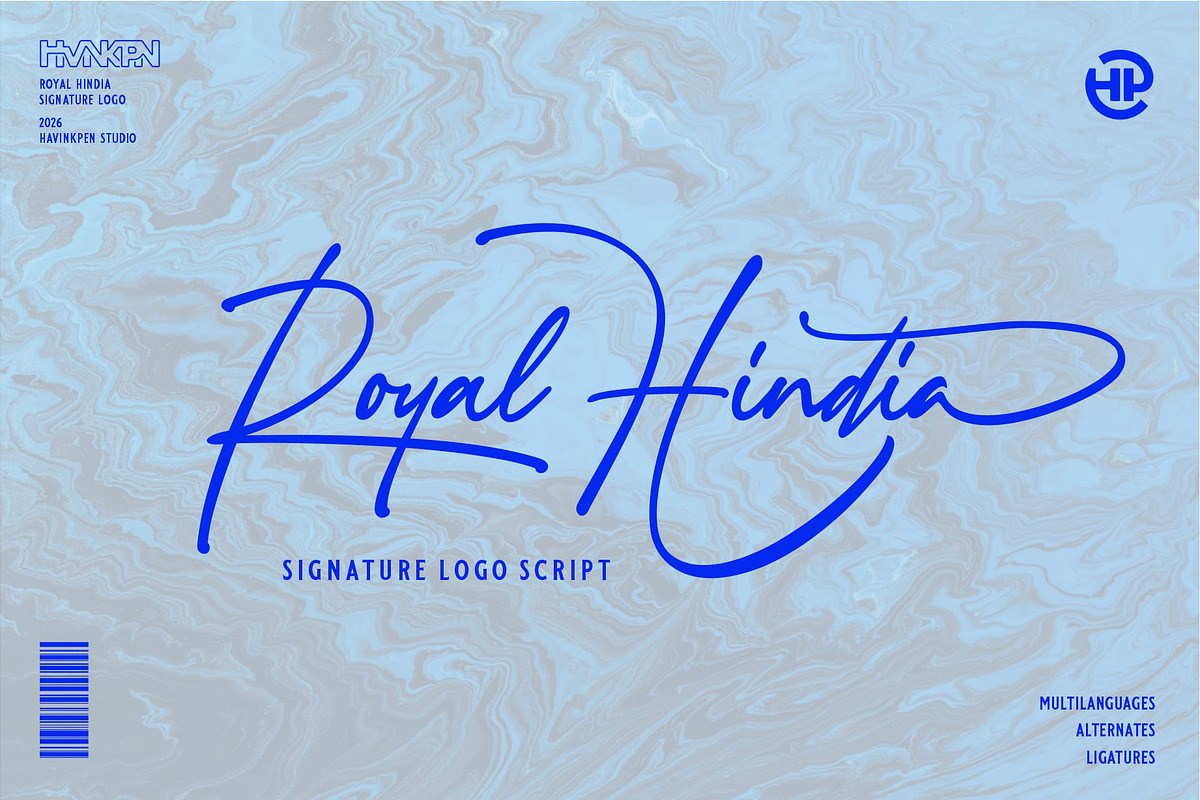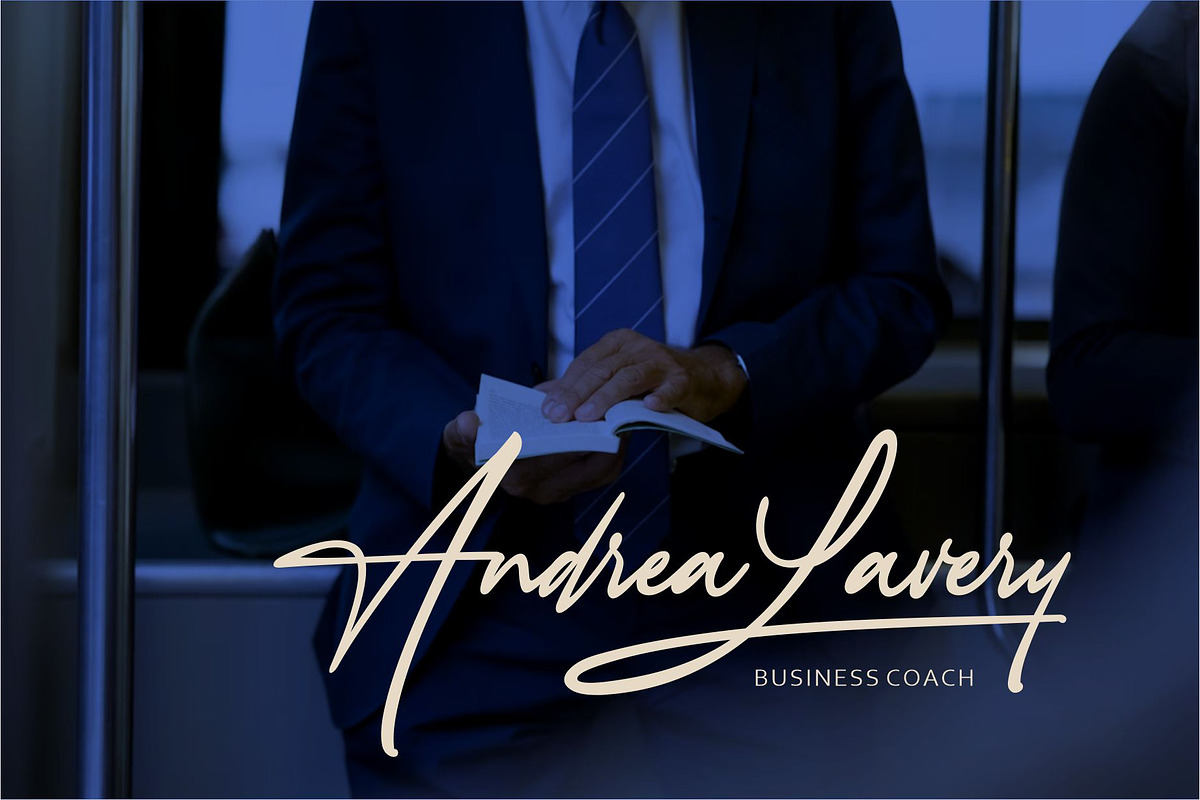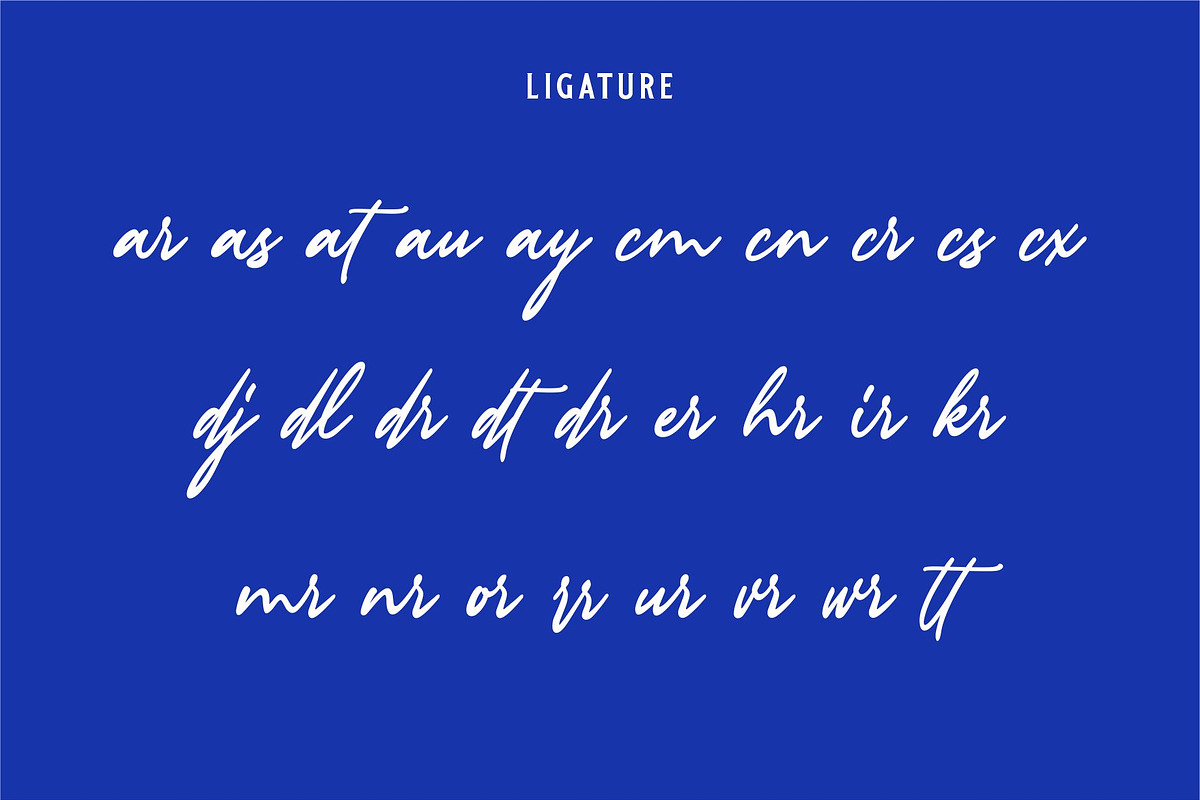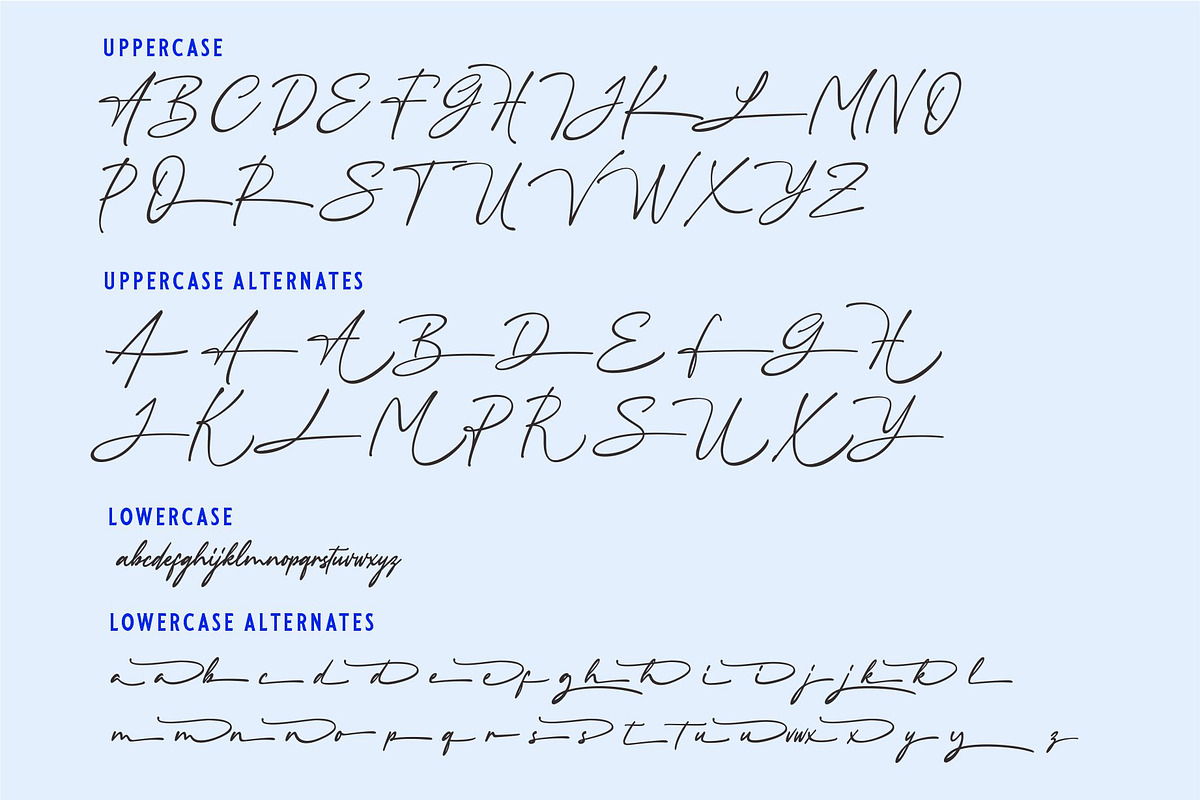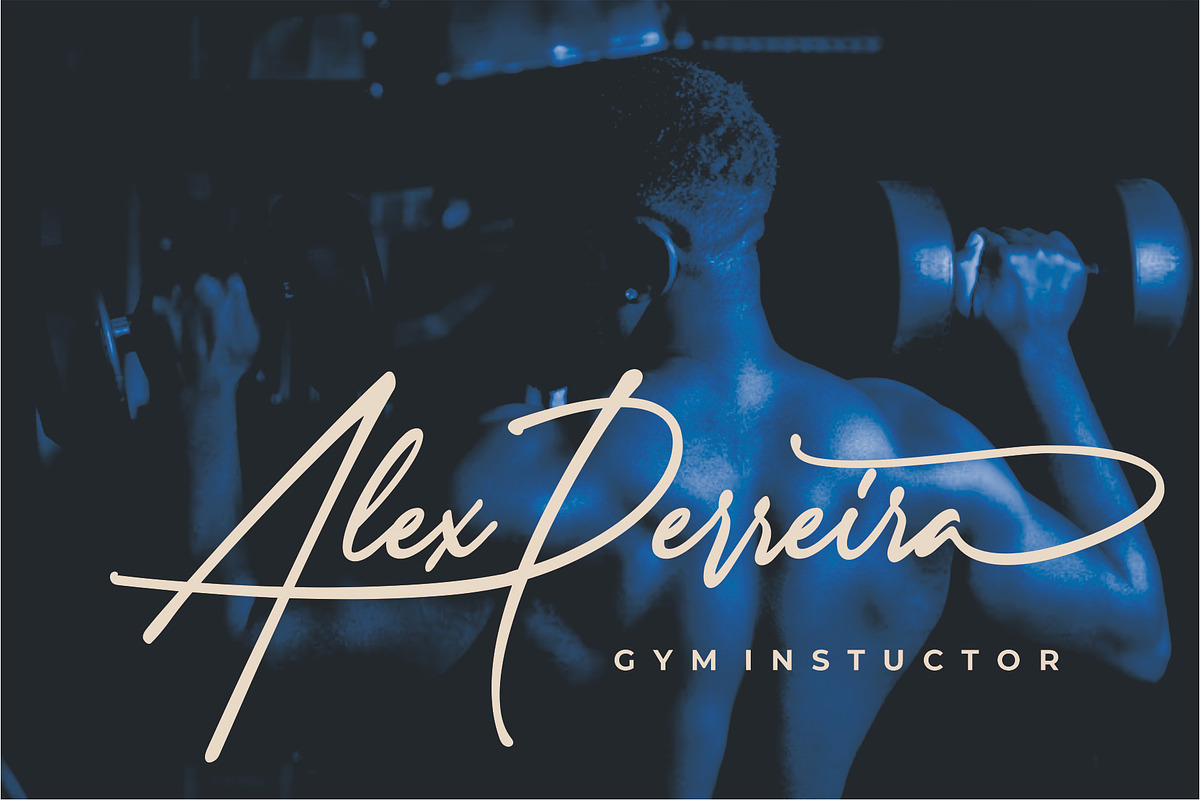
ROYAL HINDIA | Signature Logo Script
Royal Hindia is a luxurious signature script font designed to express elegance, prestige, and modern royalty. Inspired by handwritten calligraphy and refined branding aesthetics, this font blends fluid strokes with confident curves to create a timeless, premium feel. Crafted for designers who seek exclusivity and sophistication
Royal Hindia is highly versatile and works beautifully across various creative projects, including:
- Luxury logo design
- Fashion & beauty branding
- Wedding invitations & stationery
- Photography watermarks
- Social media branding
- Editorial headlines
- Personal signature logos
- Packaging & labels
- Stylistic Alternates & Ligatures